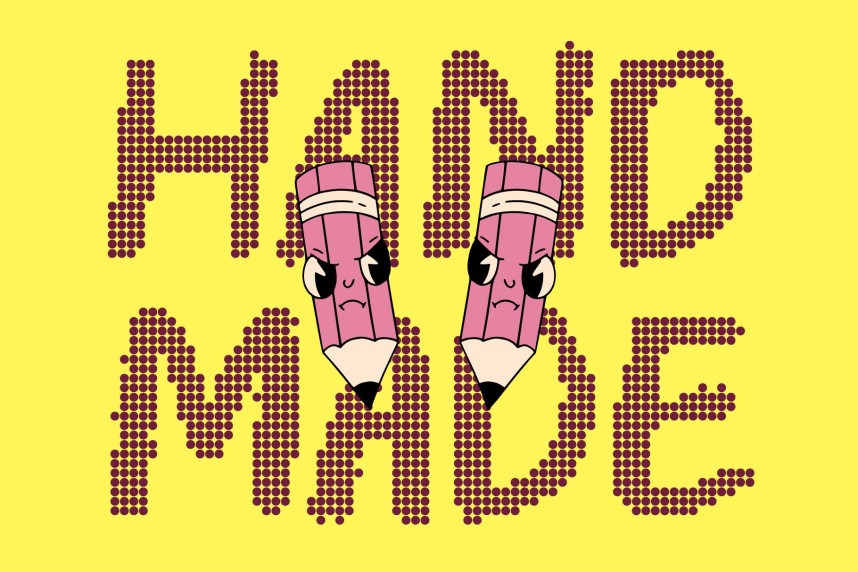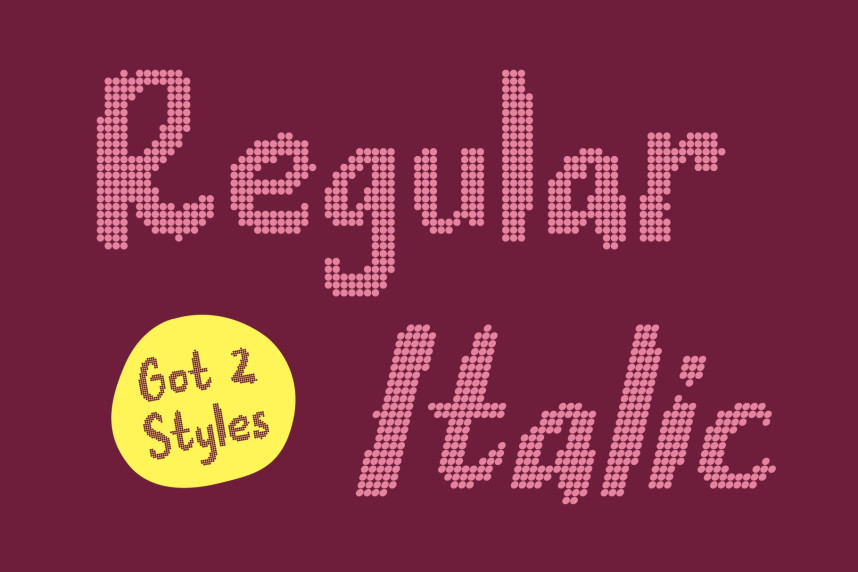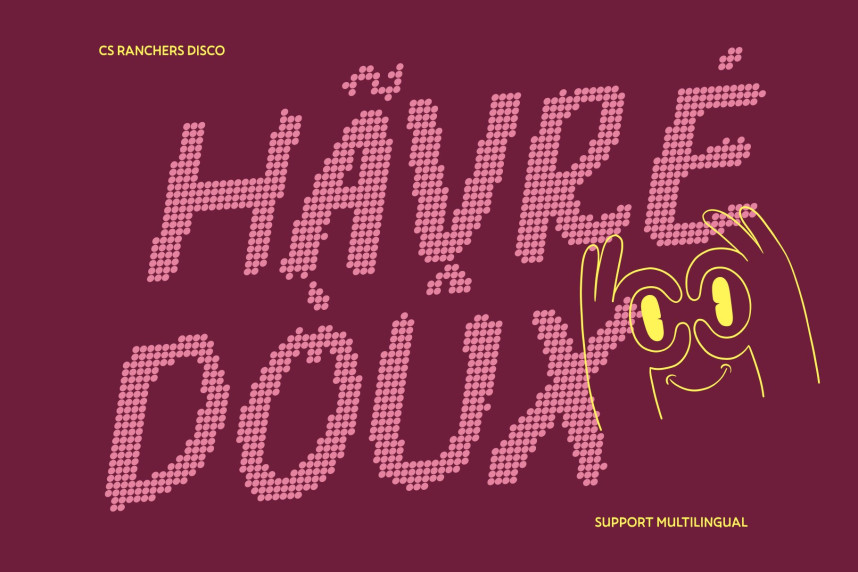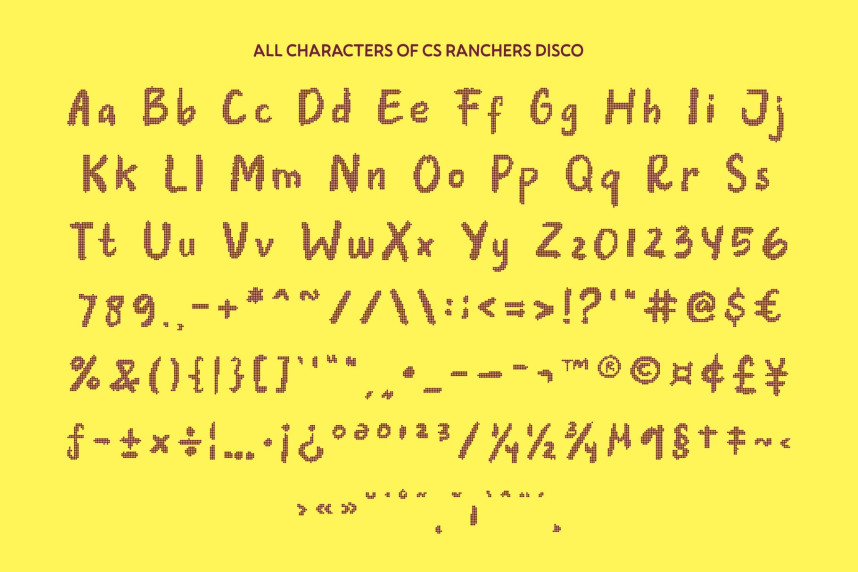
CS Ranchers Disco Font – Expressive Brush Energy with Sparkling Texture Artistic Brush Strokes with Disco-Inspired Flair. This is a bold brush display font that captures the dynamic beauty of natural hand-brushed lettering, enhanced with a lively disco-inspired dotted texture. Its expressive strokes and textured edges convey artistic movement, while the sparkling dot pattern introduces rhythm and visual excitement. This fusion creates typography that feels both handcrafted and vibrant.